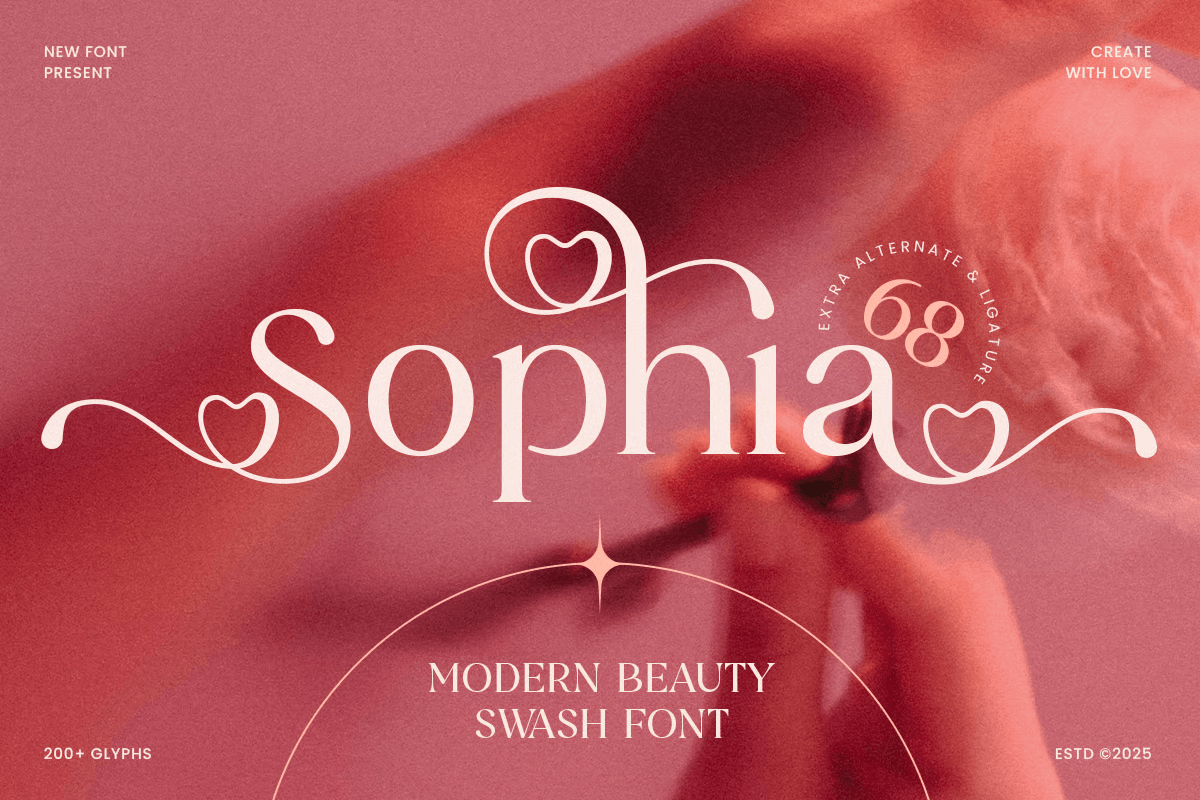
Sophia
-Beauty Lovely Swash FontSophia - Beauty Lovely Swash Font
Sophia is a beauty lovely swash font designed to bring softness, charm, and feminine elegance to your design projects. With flowing curves, expressive swashes, and a delicate feel, this typeface is perfect for beauty branding, wedding invitations, product packaging, and romantic editorial layouts.
Each letter in Sophia is crafted with graceful movement and playful charm, offering an irresistibly sweet and stylish classy touch. The swash elements create beautiful wordmarks, making this font ideal for logos, quotes, greeting cards, social media posts, and lifestyle branding that needs a warm, personal feel.
Whether you're designing for fashion, beauty, stationery, or creative digital content, Sophia adds a polished, feminine, and enchanting aesthetic to every composition.
Sophia - Beauty Lovely Swash Font Features
Elegant serif font with lovely swashes
Perfect for feminine branding, invitations, packaging, and social media
Smooth curves and romantic flow for charming, expressive typography
Ideal for beauty, lifestyle, wedding, and boutique design
OpenType swashes for advanced decorative styling
Add sweetness and elegance to your projects with Sophia – the perfect beauty swash font for feminine, romantic, and modern design. ✨💗